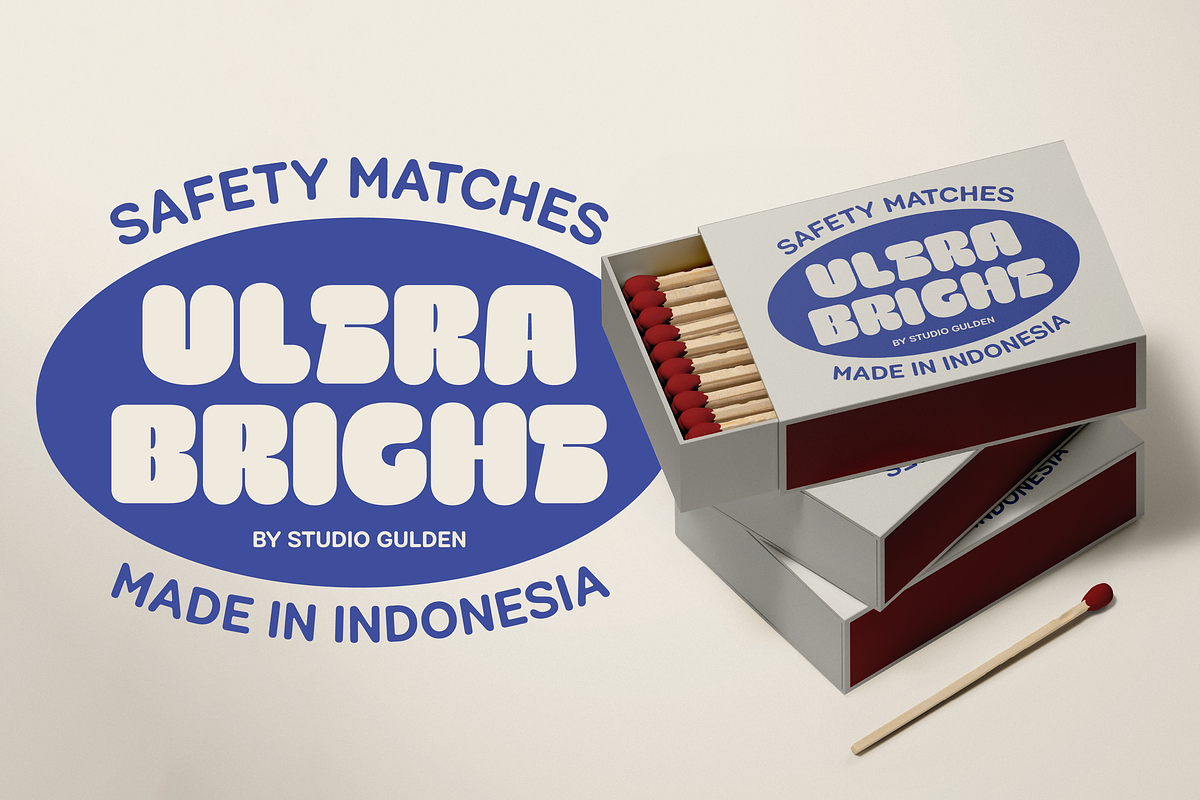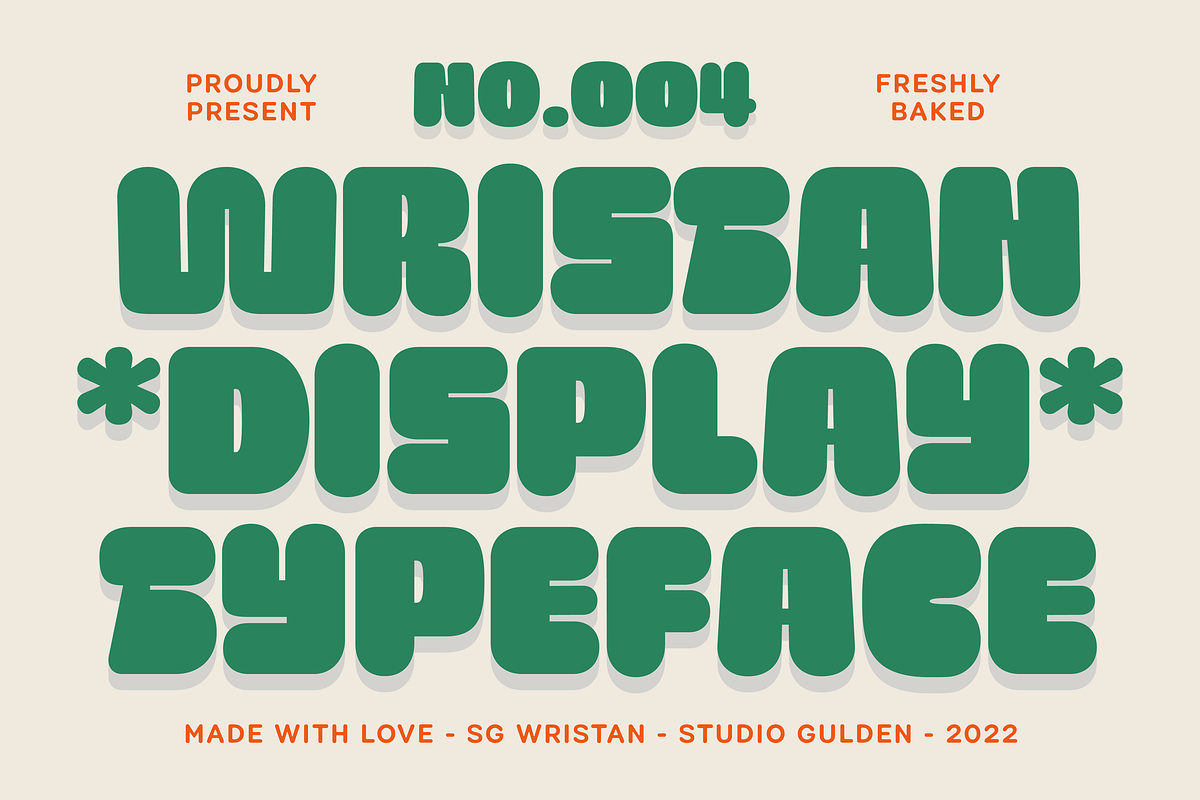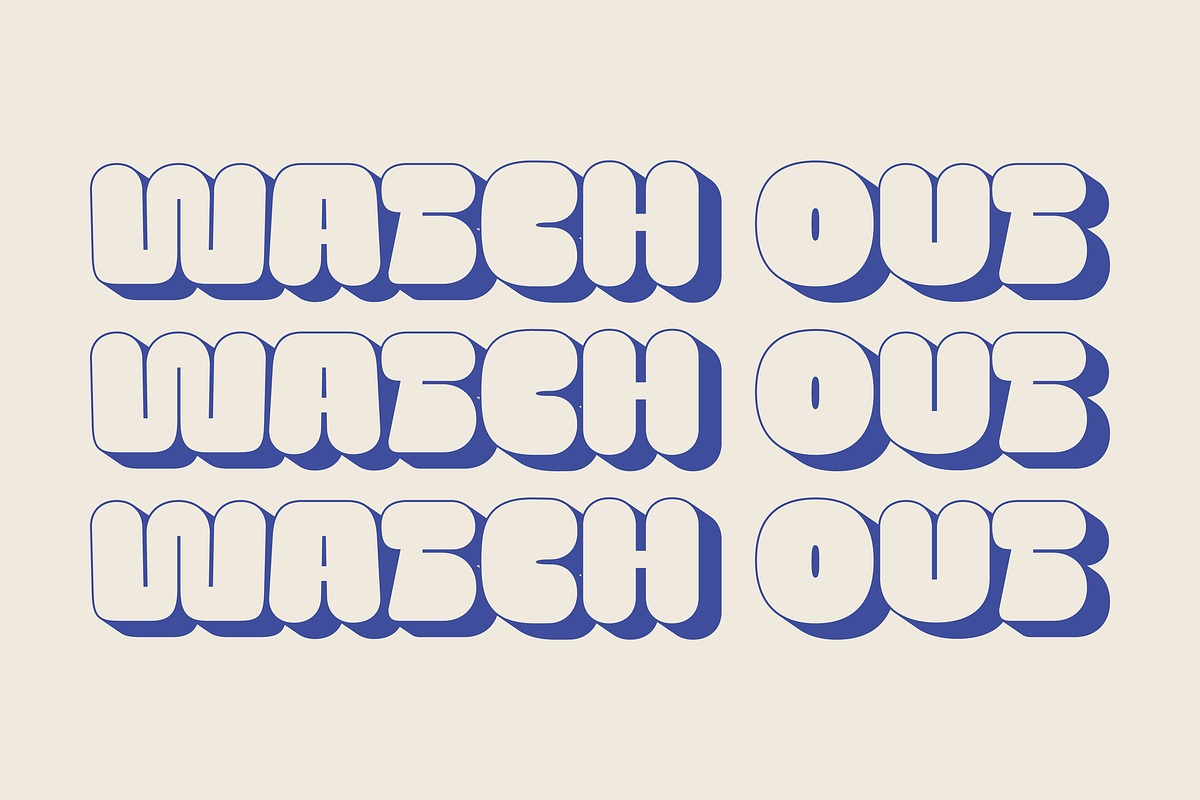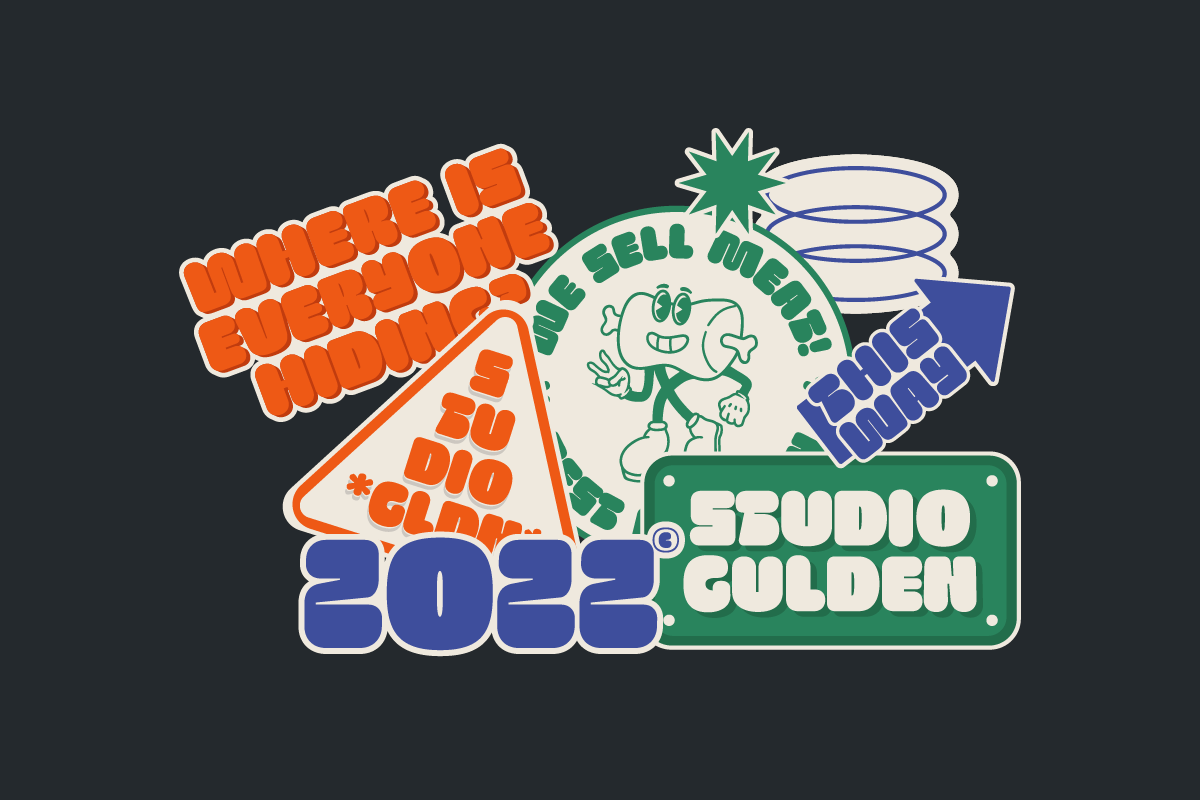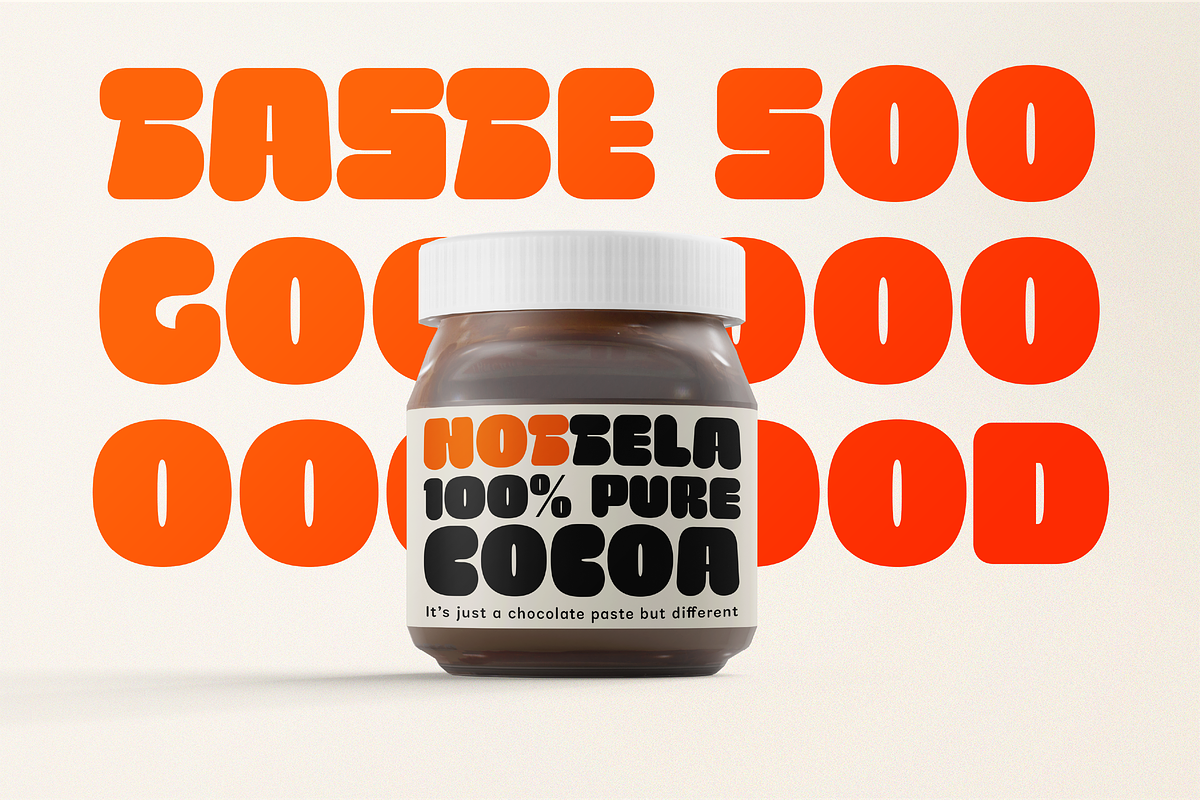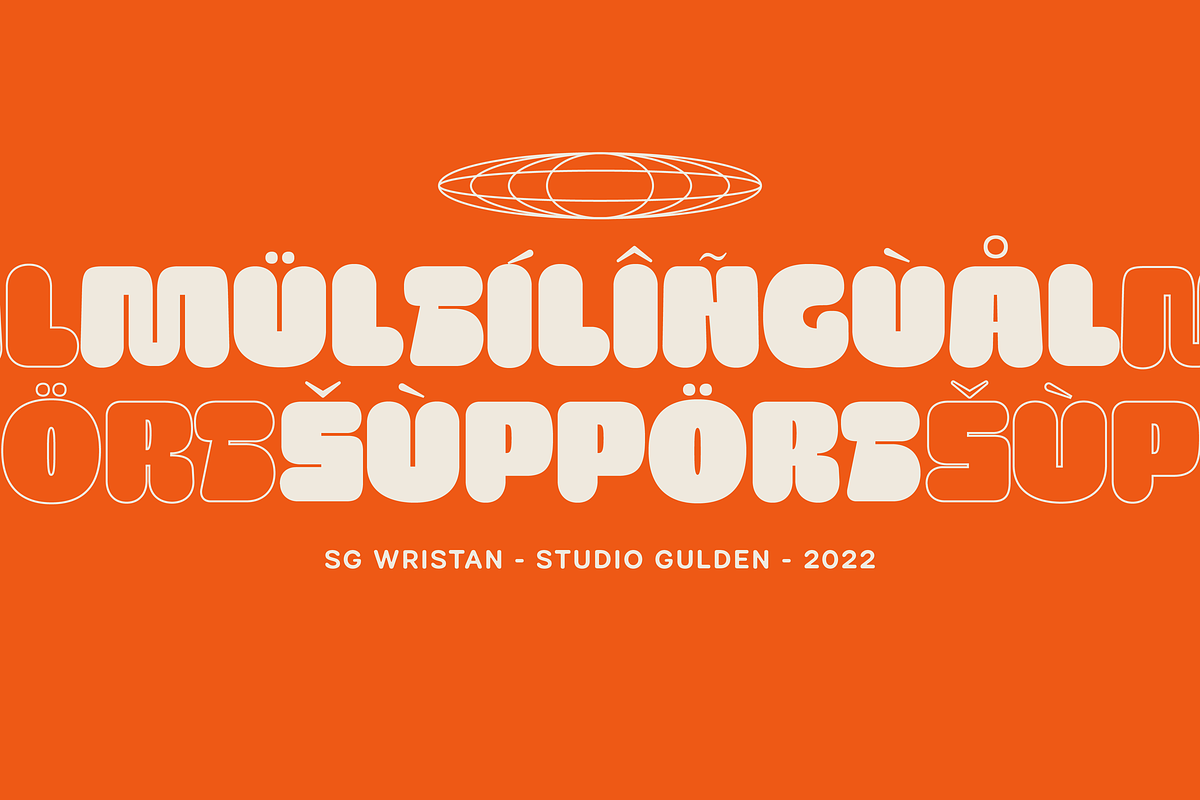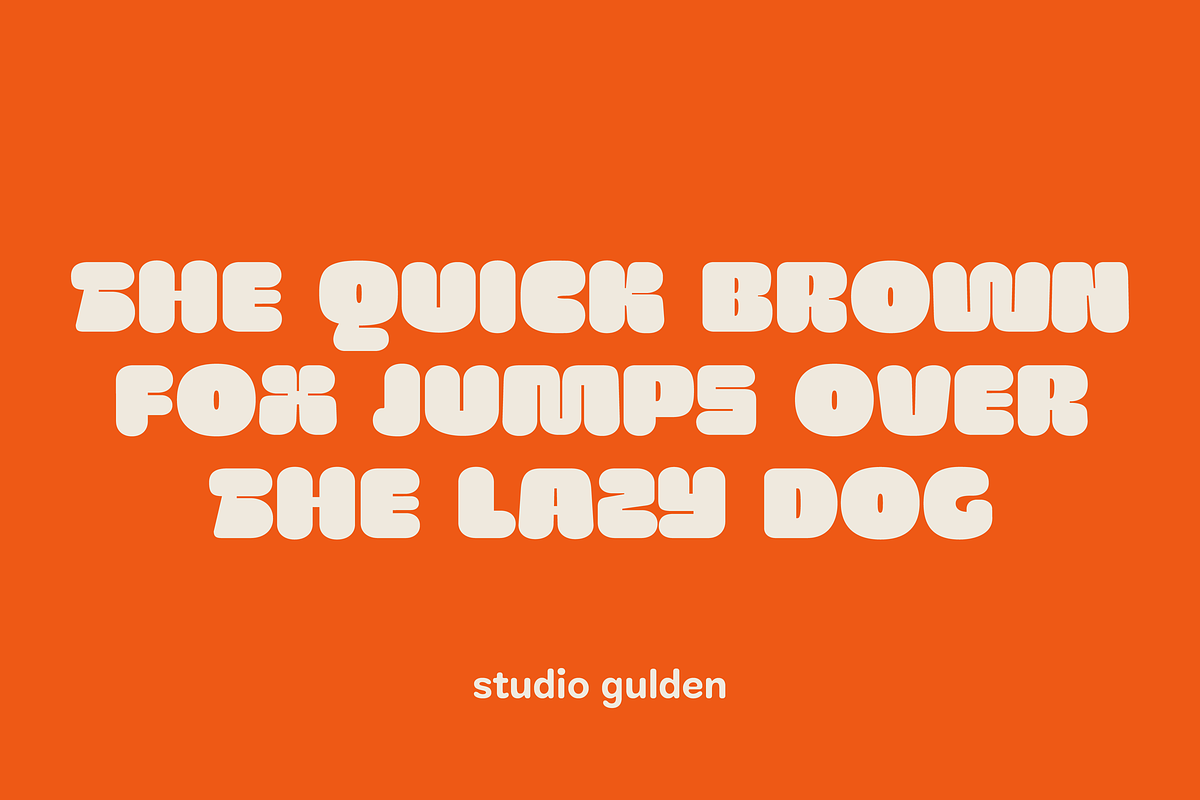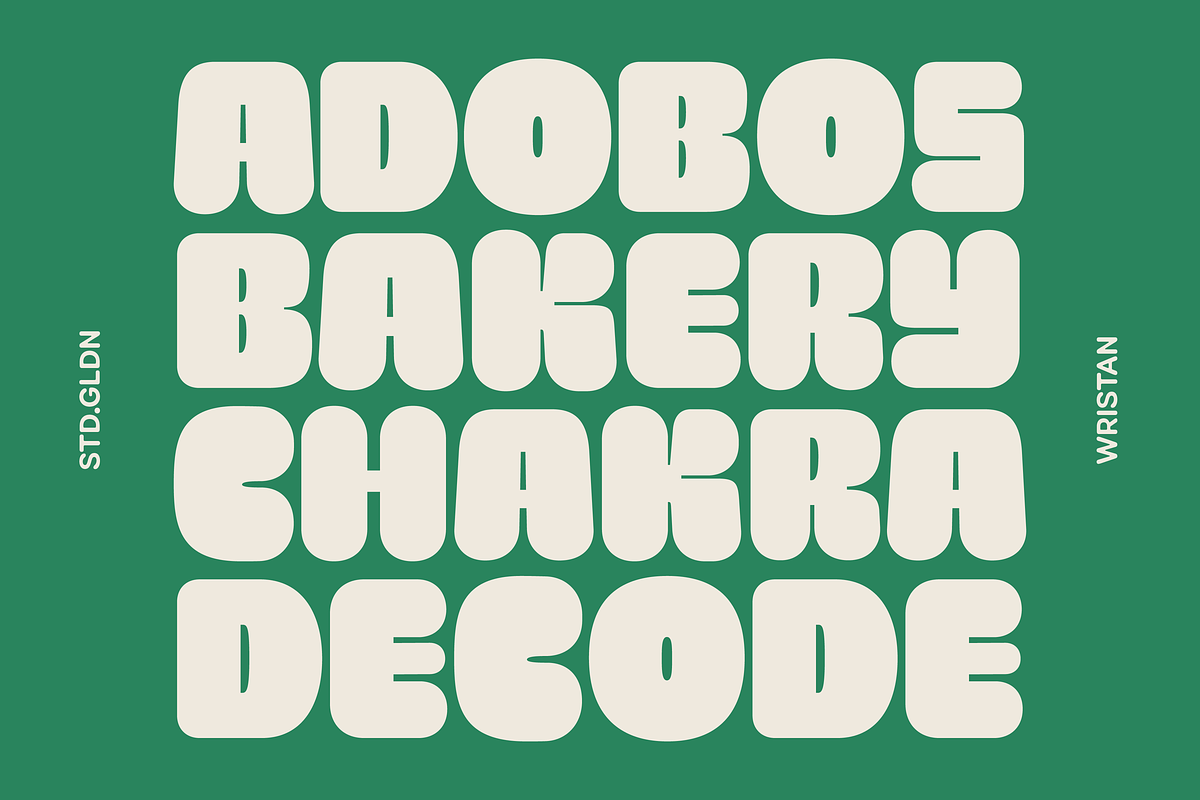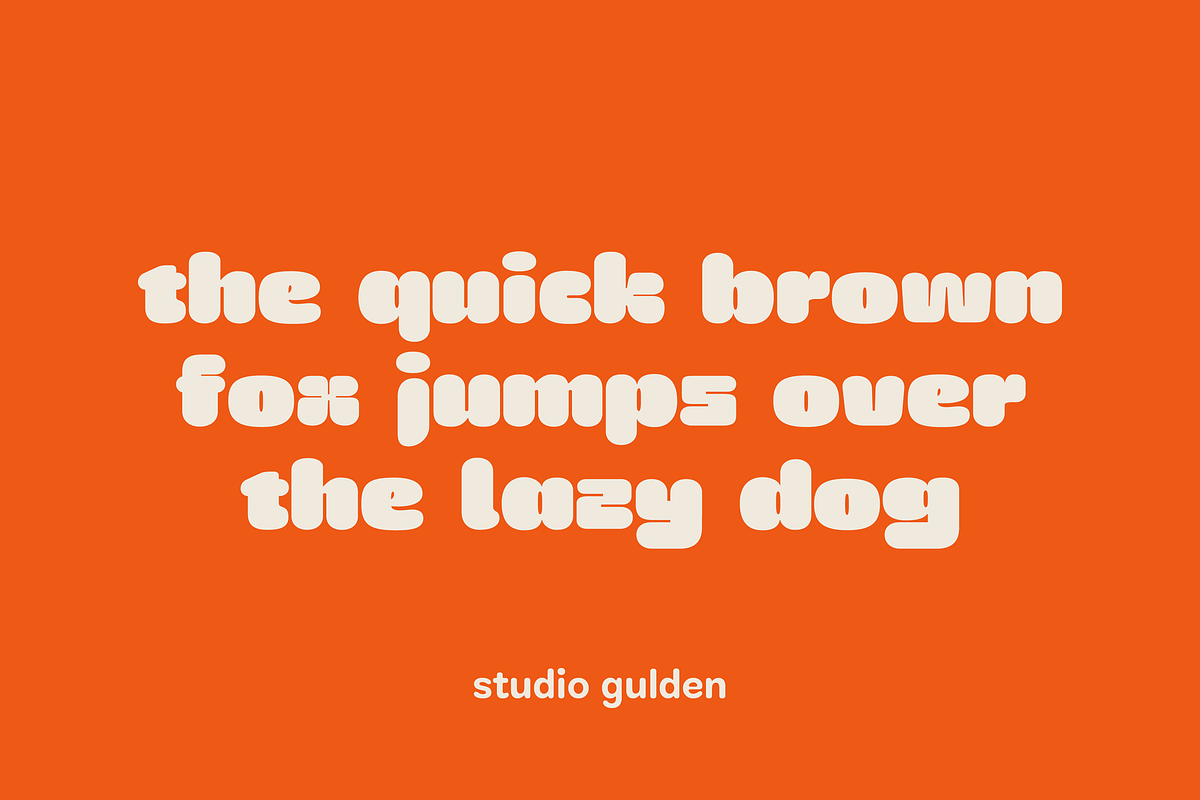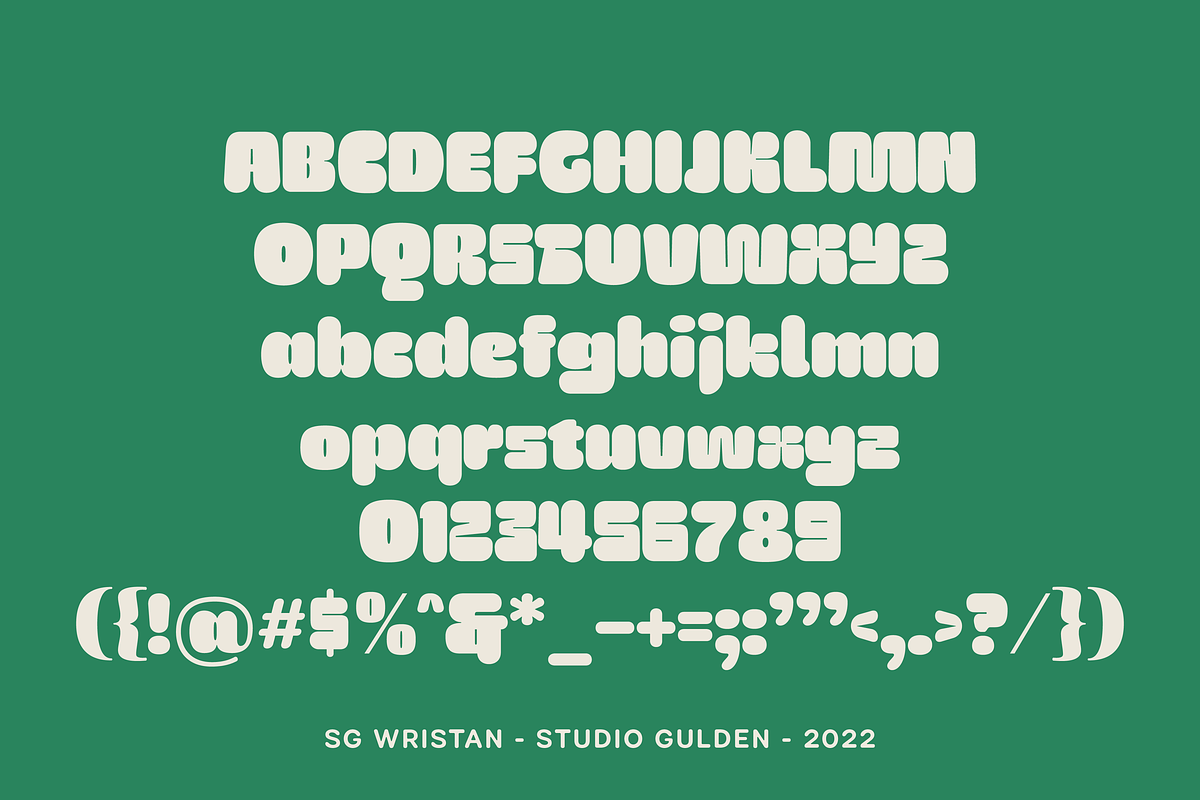
SG - WRISTAN
SG - WRISTAN font is a display font with bold style. This font has uppercase and lowercase letters. It’s perfect for display design that needs pop, fun, and playful vibes on it. You can try to combine with other fonts and gain more experience in graphic design.
- Slanted and Backslant